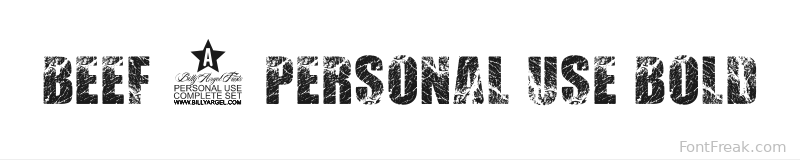
BEEF 3 PERSONAL USE Bold
BEEF 3 PERSONAL USE Bold is a striking display font designed by Billy Argel Fonts, characterized by its bold, rugged appearance that captures attention effortlessly. This font falls into the decorative category, making it ideal for projects that require a unique and memorable visual impact. The design features a strong stroke weight with a slightly distressed texture, giving it an organic, hand-crafted feel. The contrast in the letterforms adds a dynamic quality, while the spacing is generous enough to maintain legibility, even in larger applications.
This font is particularly well-suited for a variety of creative uses. It can be effectively utilized in wedding invitations, where its boldness brings a modern twist to traditional designs. Additionally, BEEF 3 PERSONAL USE Bold is perfect for movie posters, adding an edgy flair that draws viewers in. Restaurant menus can benefit from its distinctive style, making dish names pop and enhancing the overall dining experience. Furthermore, it is an excellent choice for branding projects, especially for small businesses looking to make a memorable first impression.
Targeted toward graphic designers, small business owners, and content creators, this font allows for expressive typography that stands out in any setting. Its unique character appeals to those who seek to imbue their designs with personality and flair.
What truly sets BEEF 3 PERSONAL USE Bold apart is its blend of boldness and character, making it not just a font but a design statement. The BEEF 3 PERSONAL USE Bold font free download offers an opportunity for anyone to elevate their creative projects with a distinctive and eye-catching typeface that resonates with contemporary design trends.